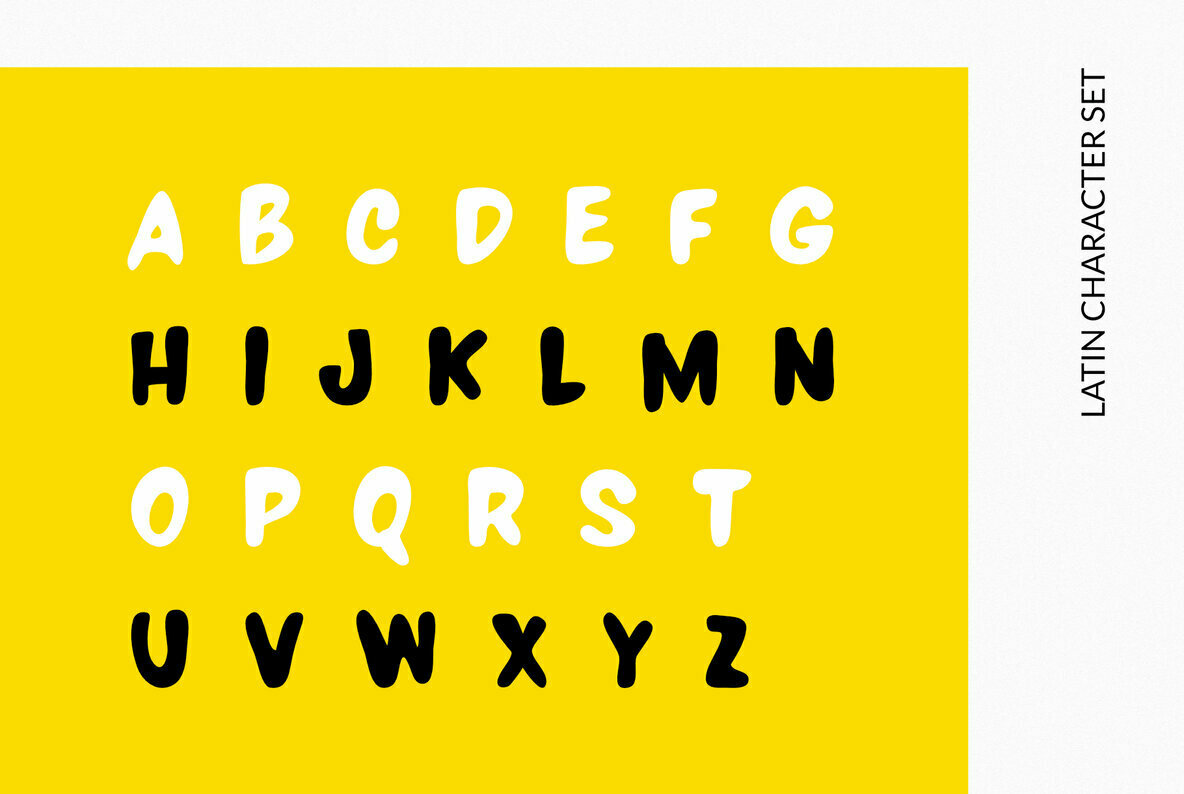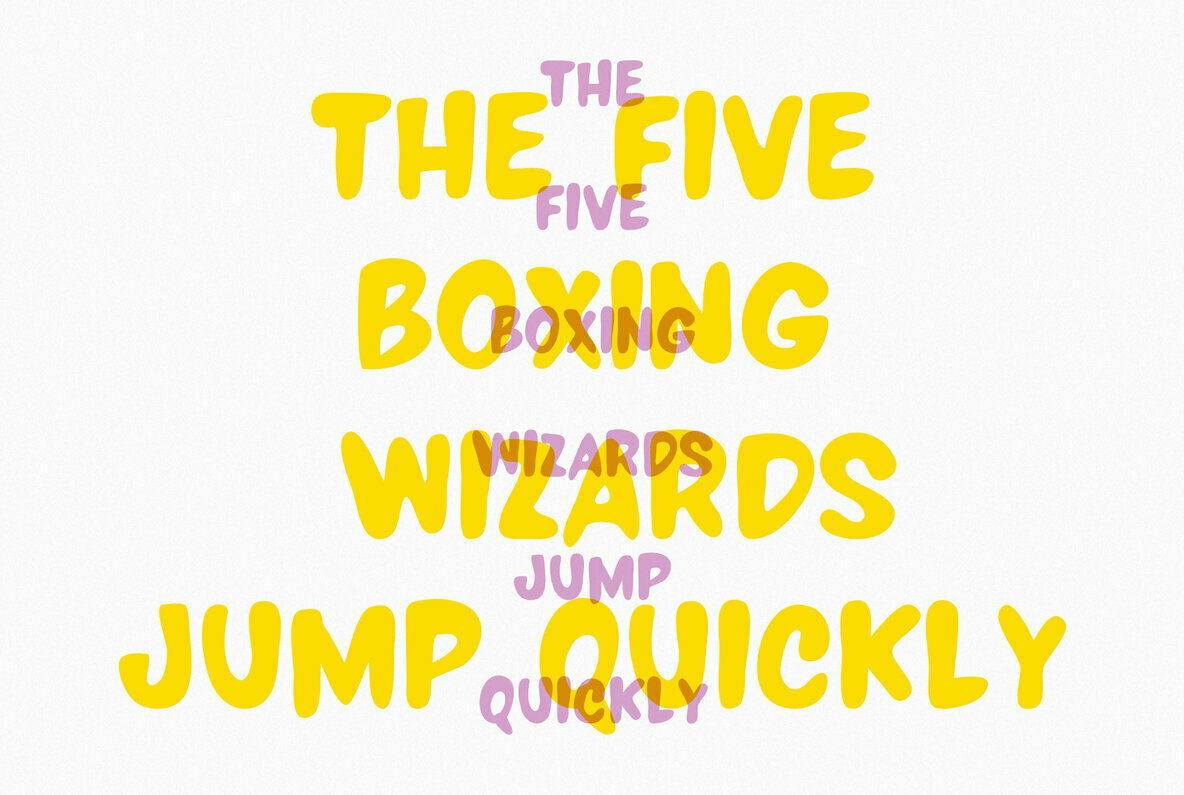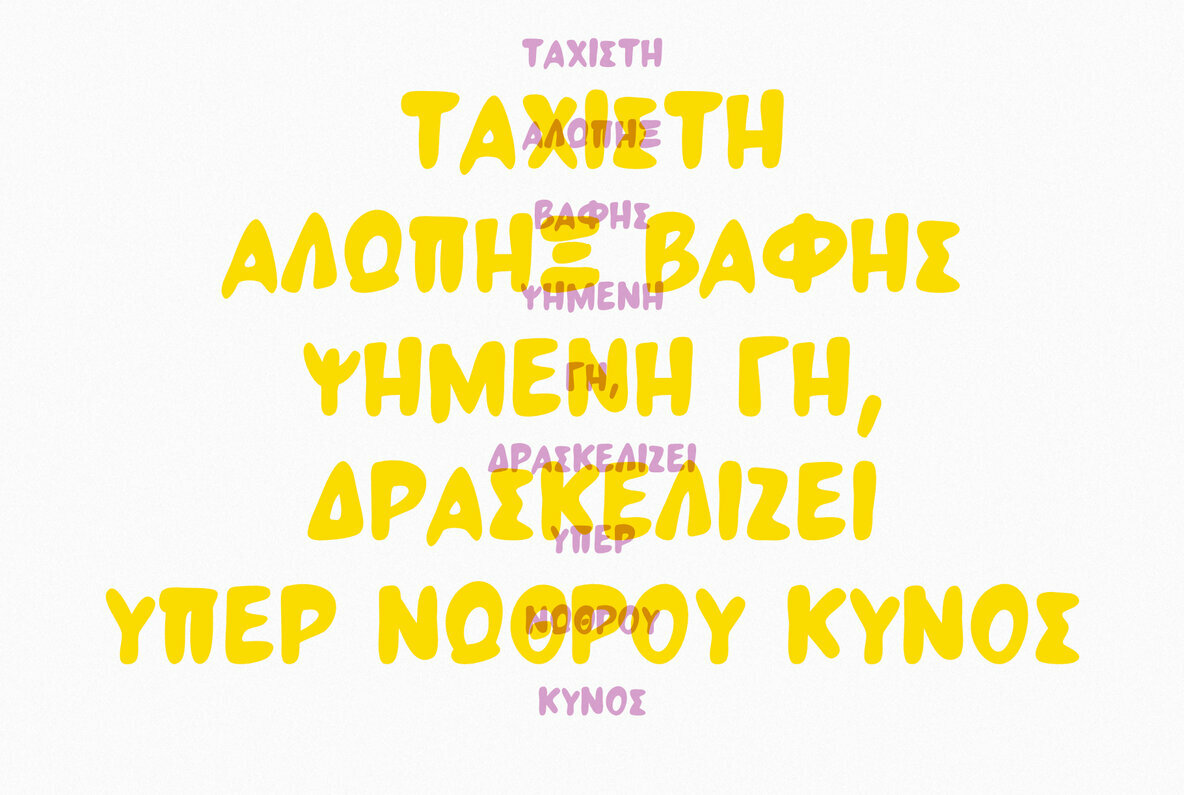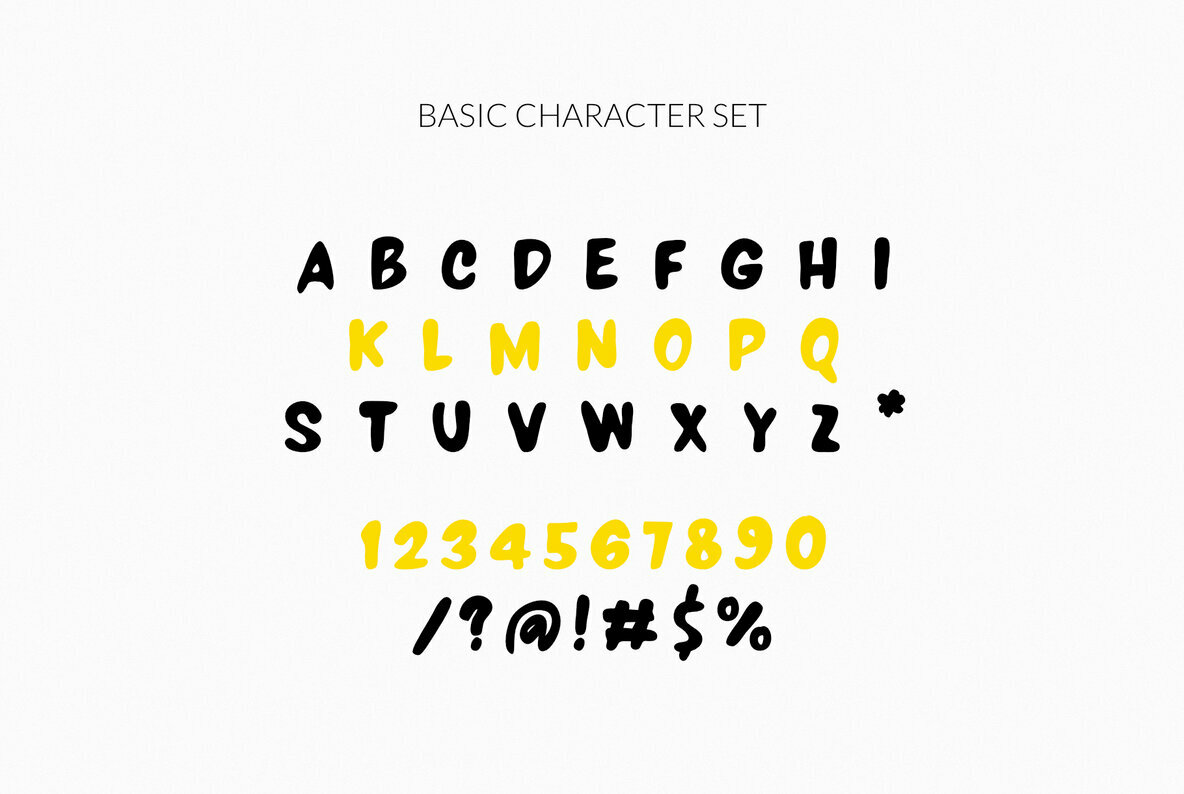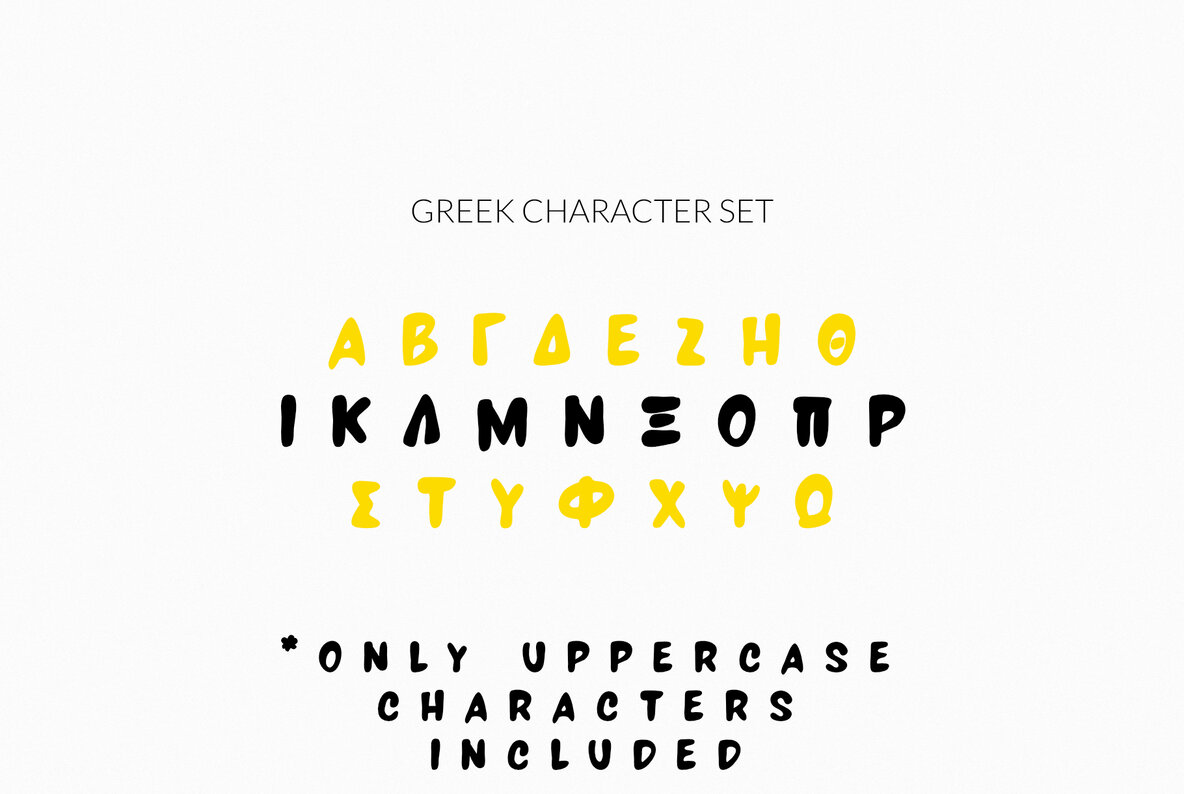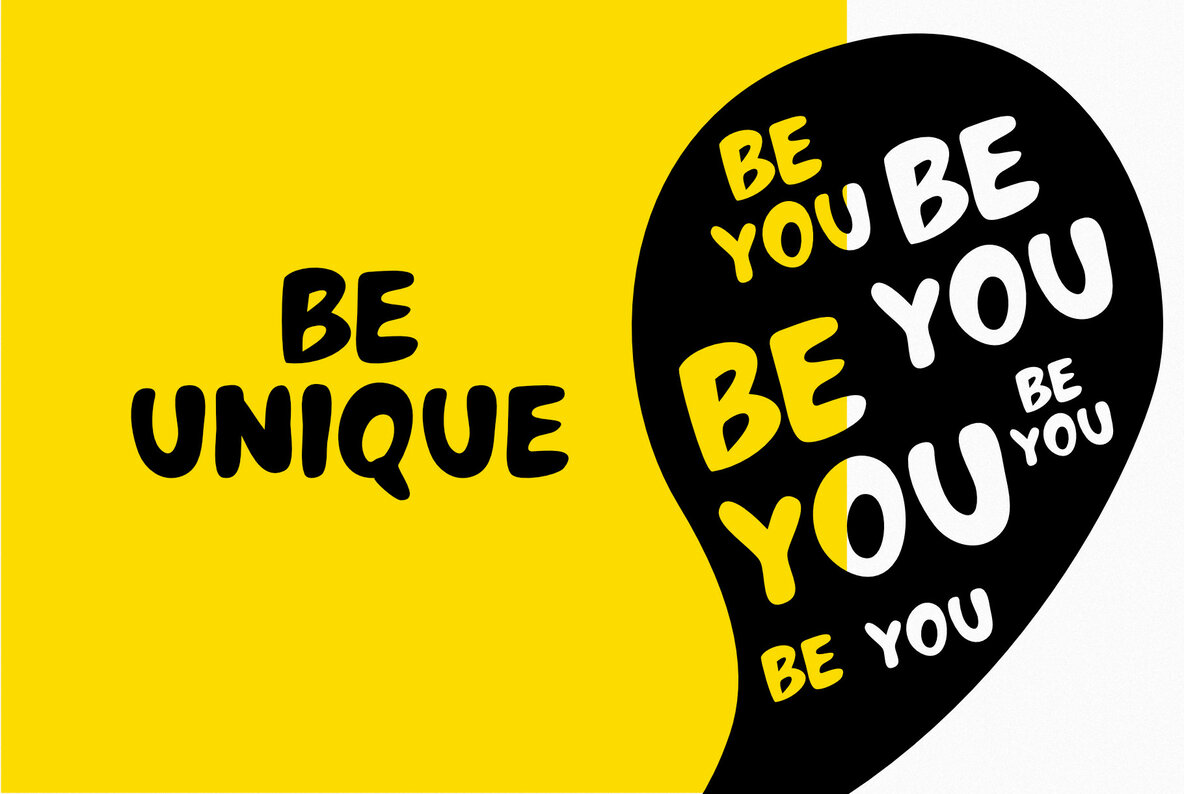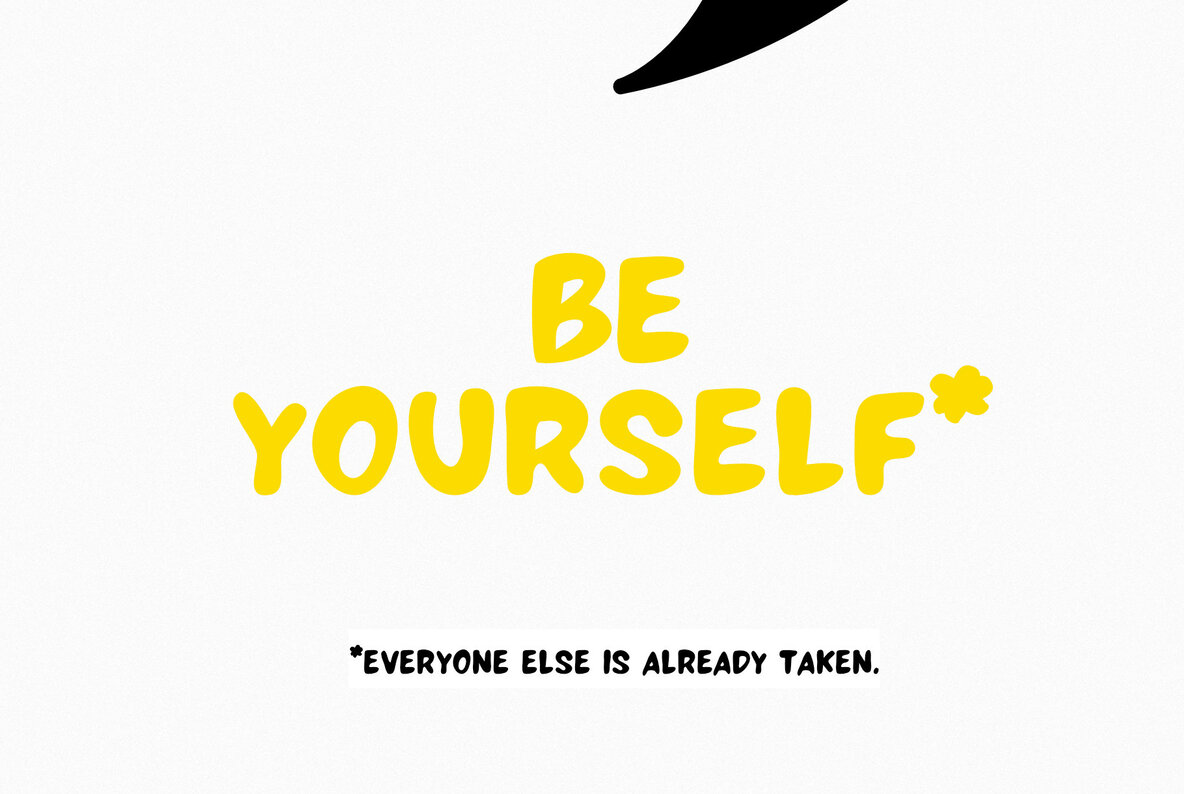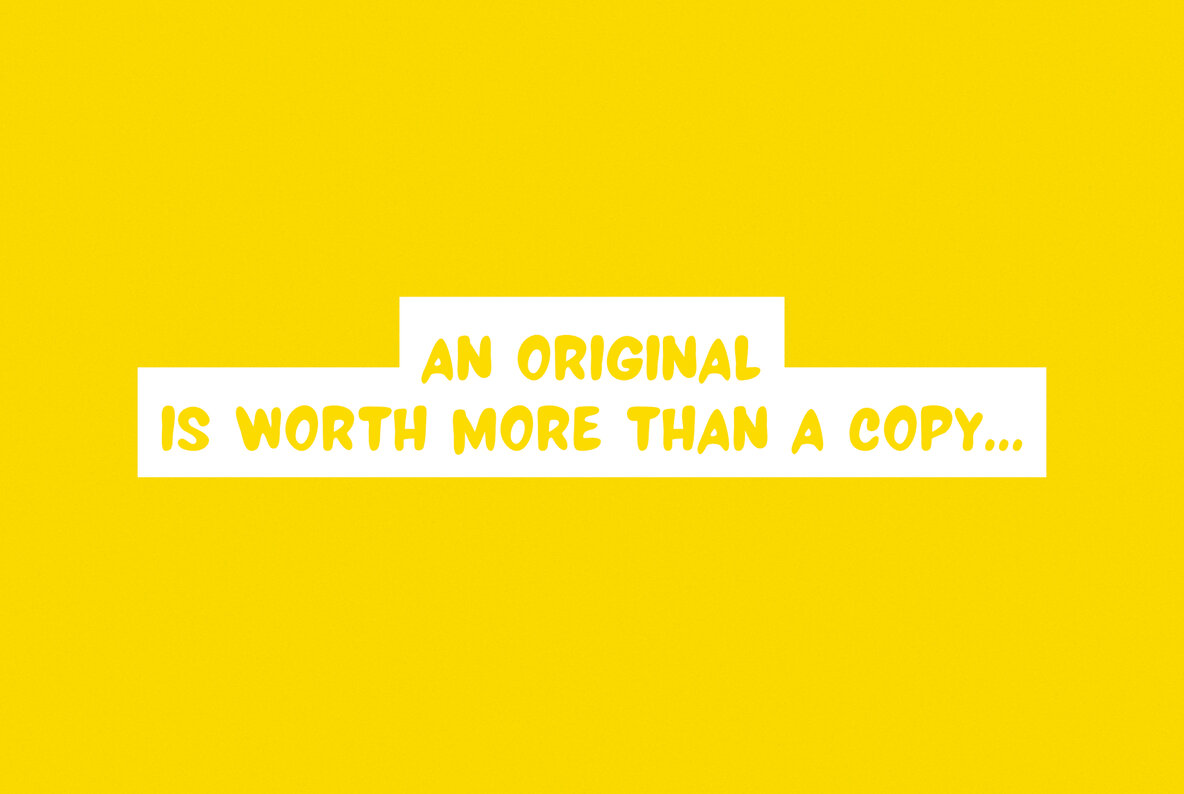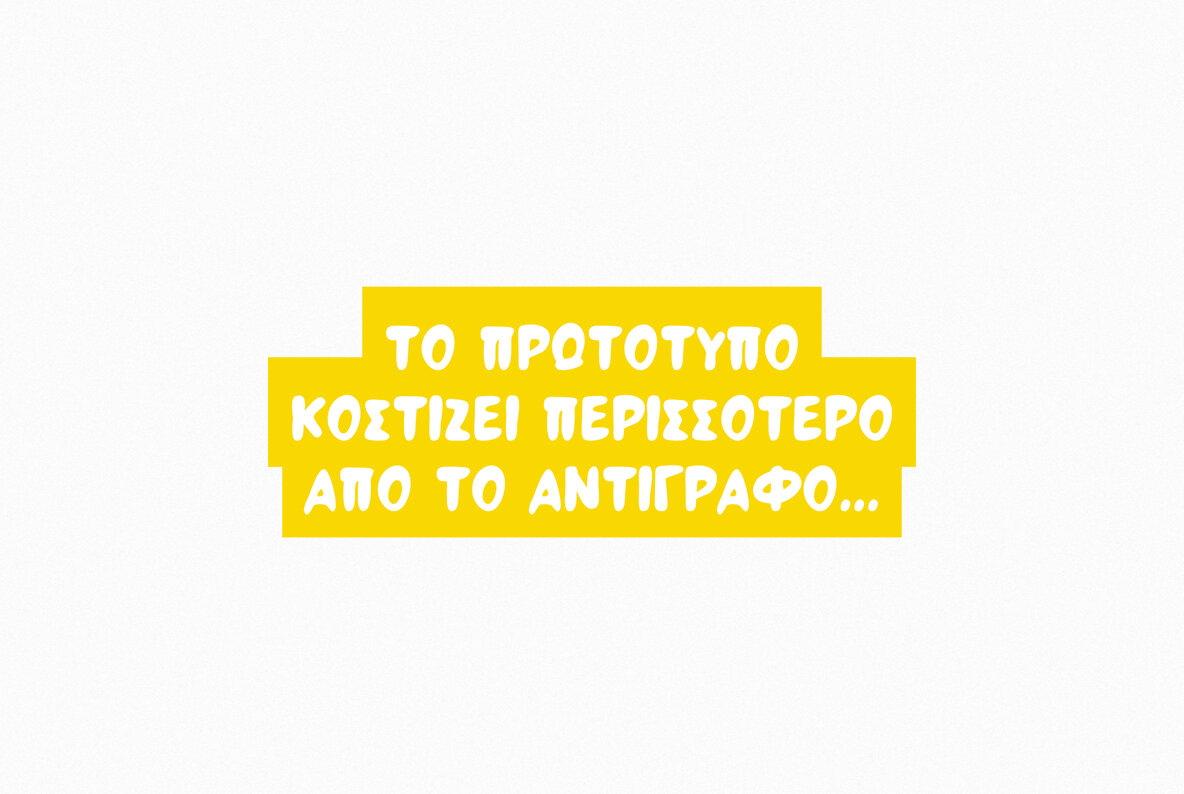
LALOU Font
NF LaLou Regular
LALOU Greek Chubby Font is a fun decorative font. Of course, the font supports a full set of Greek characters, and an extended Latin character set with diacritics. This only uppercase font is ideal for bold graphic design statements.
In fact, the cute, chubby feeling of the font makes it ideal for food packaging, children’s apparel branding, and crafty t-shirt slogan designs. Also, it can be used on social media content, Instagram hand-written quotes, for branding, poster design, and any other kind of product packaging.
- Extended Latin Characters
- Greek Characters
- Numerals